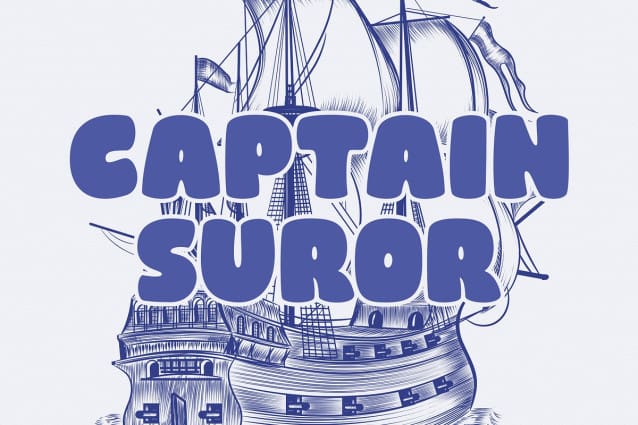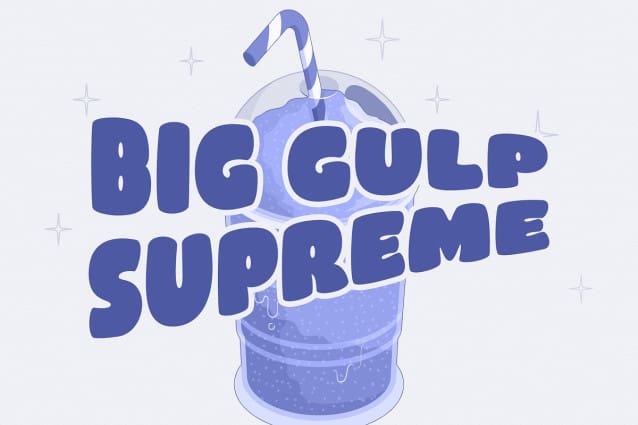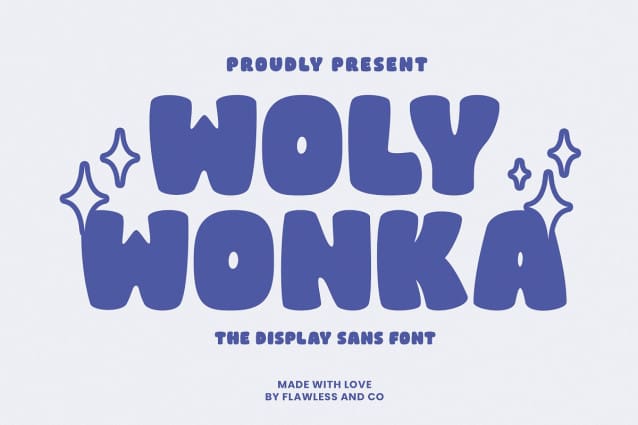
Woly Wonka Font
Woly Wonka Font – A Display Sans Font. Step into a world of whimsy and imagination with “Woly Wonka,” a captivating display sans font that adds a touch of playfulness to your designs. With its cheerful characters and distinctive style, “WolyWonka” is the perfect choice for projects that demand a dose of creativity and lightheartedness.